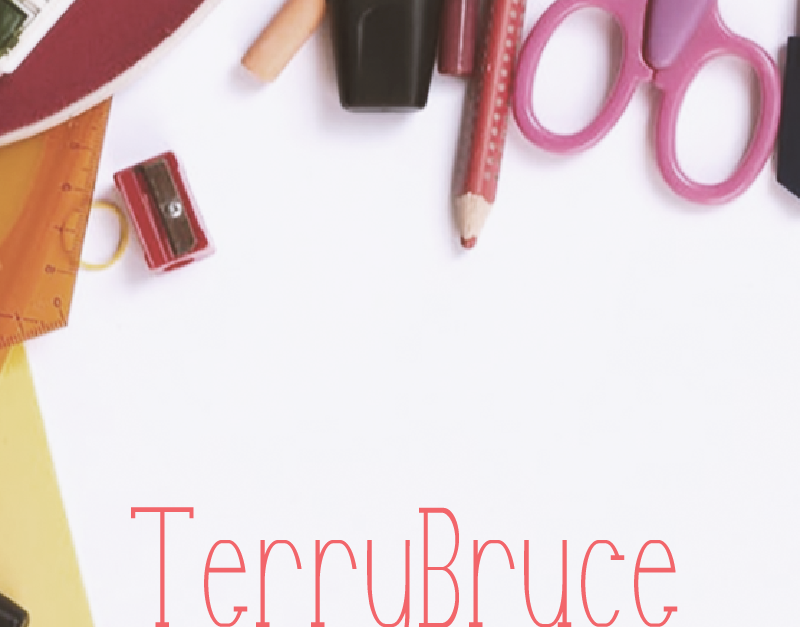
TerryBruce Font
TerryBruce – Imperfectly beautiful Sans Serif
Yeah, this is a new kind. See the edge, see the round, the shape of this typeface is like never seen before. It’s Imperfect, that’s why it’s beautiful. There’s nothing perfect in this world, but this is a beautiful one.
It’s great for headline, stationery brands, logo with unique sans, great for quote social media post etc.
It’s a sans-serif font, it’s a custom made, uniquely exclusive